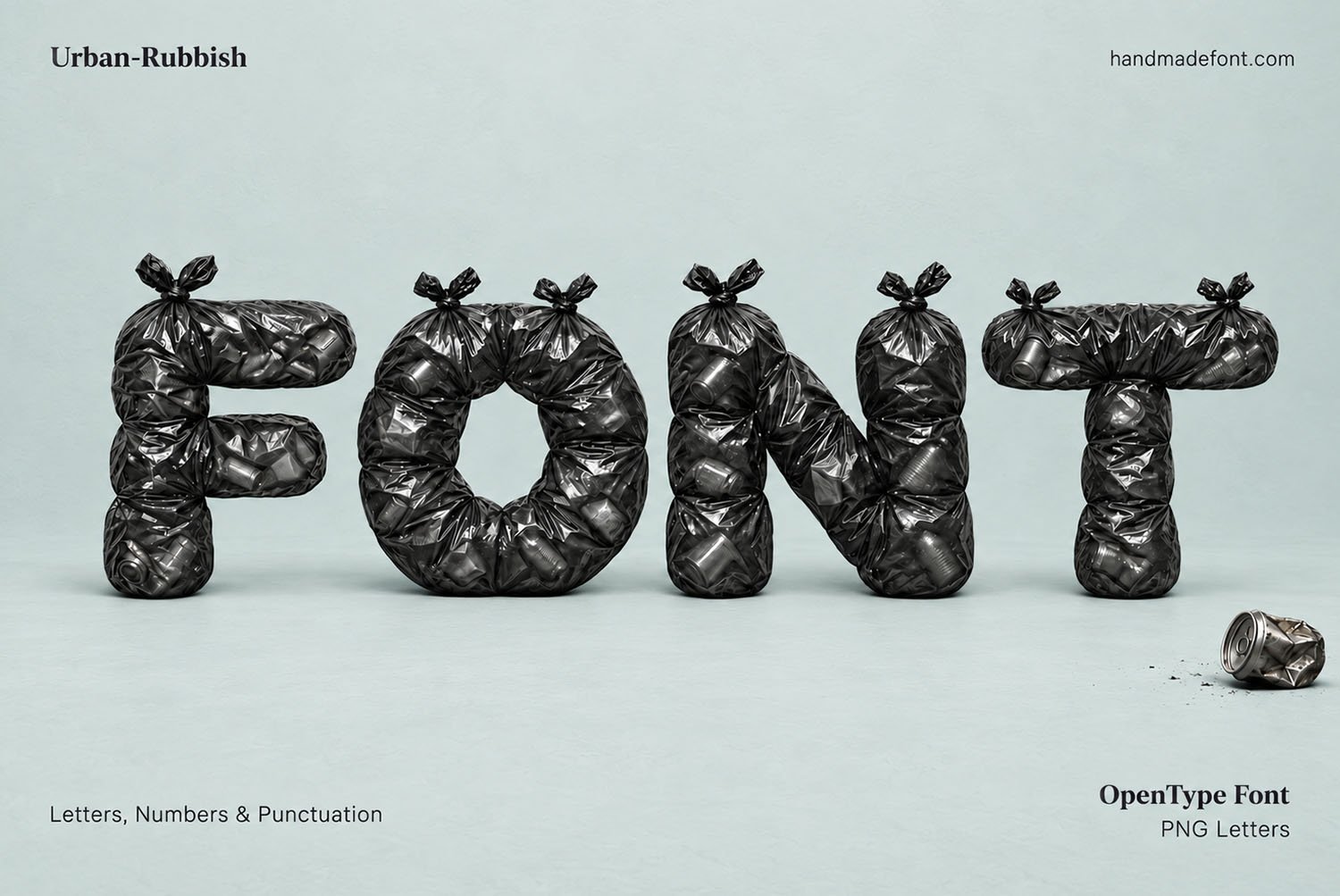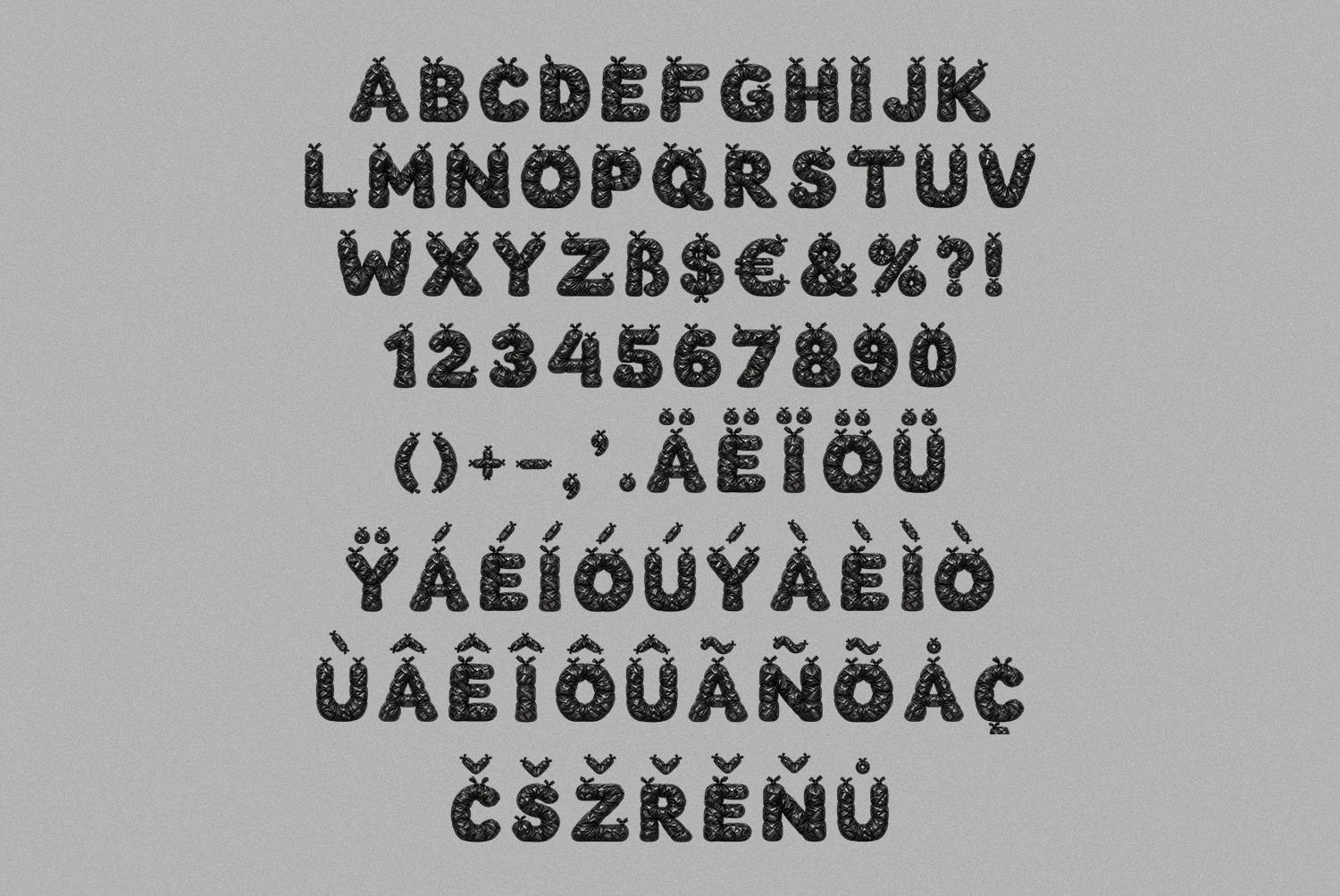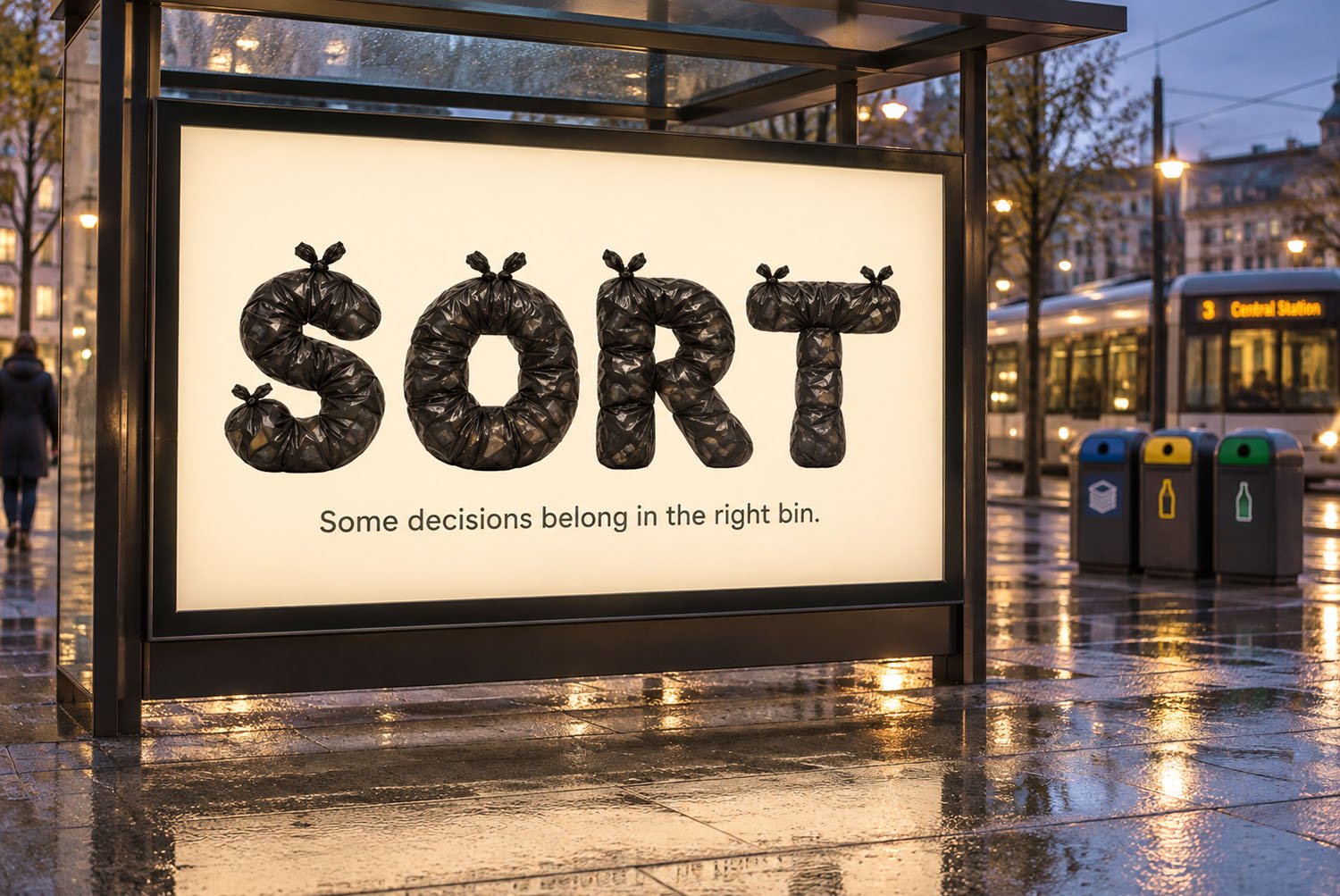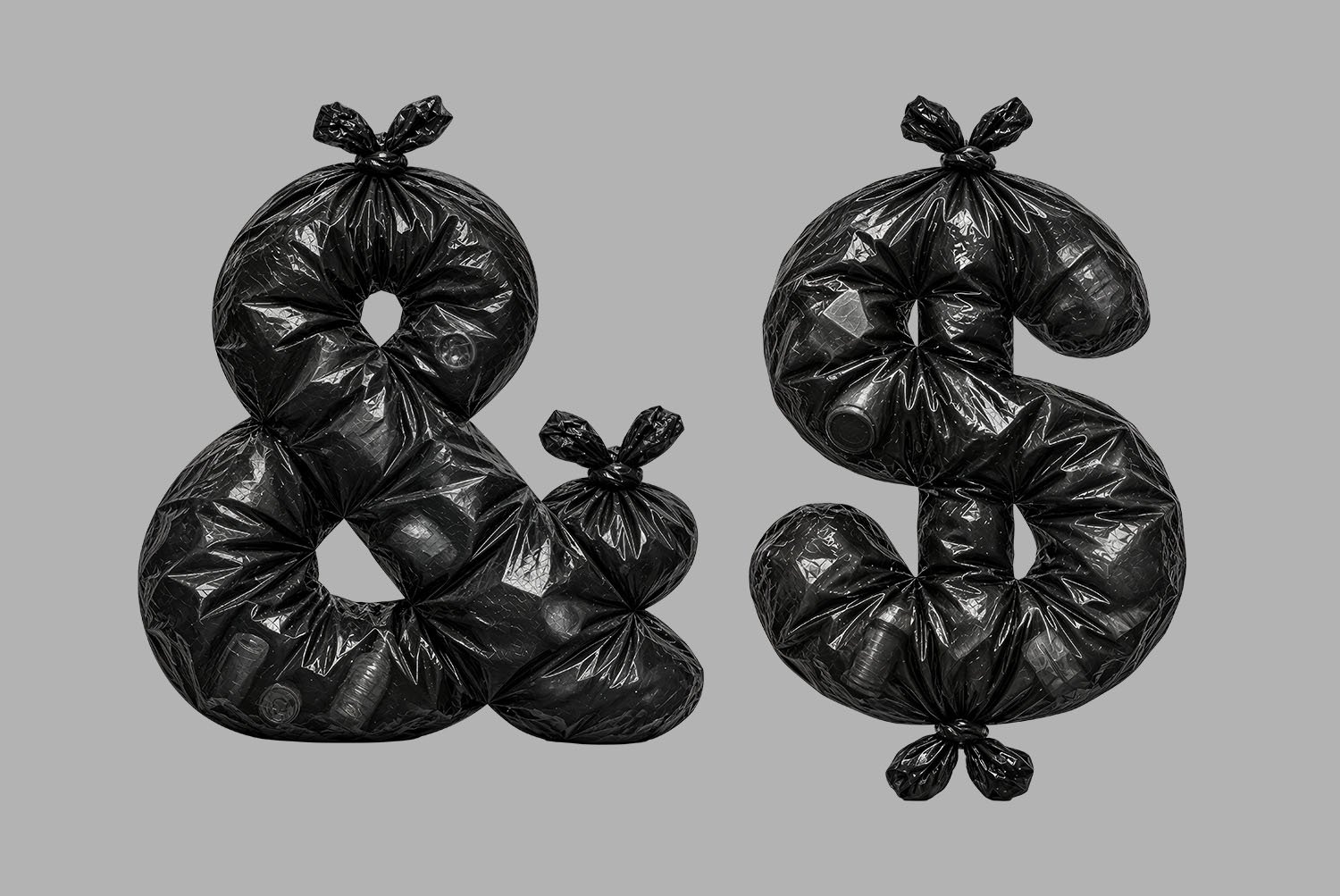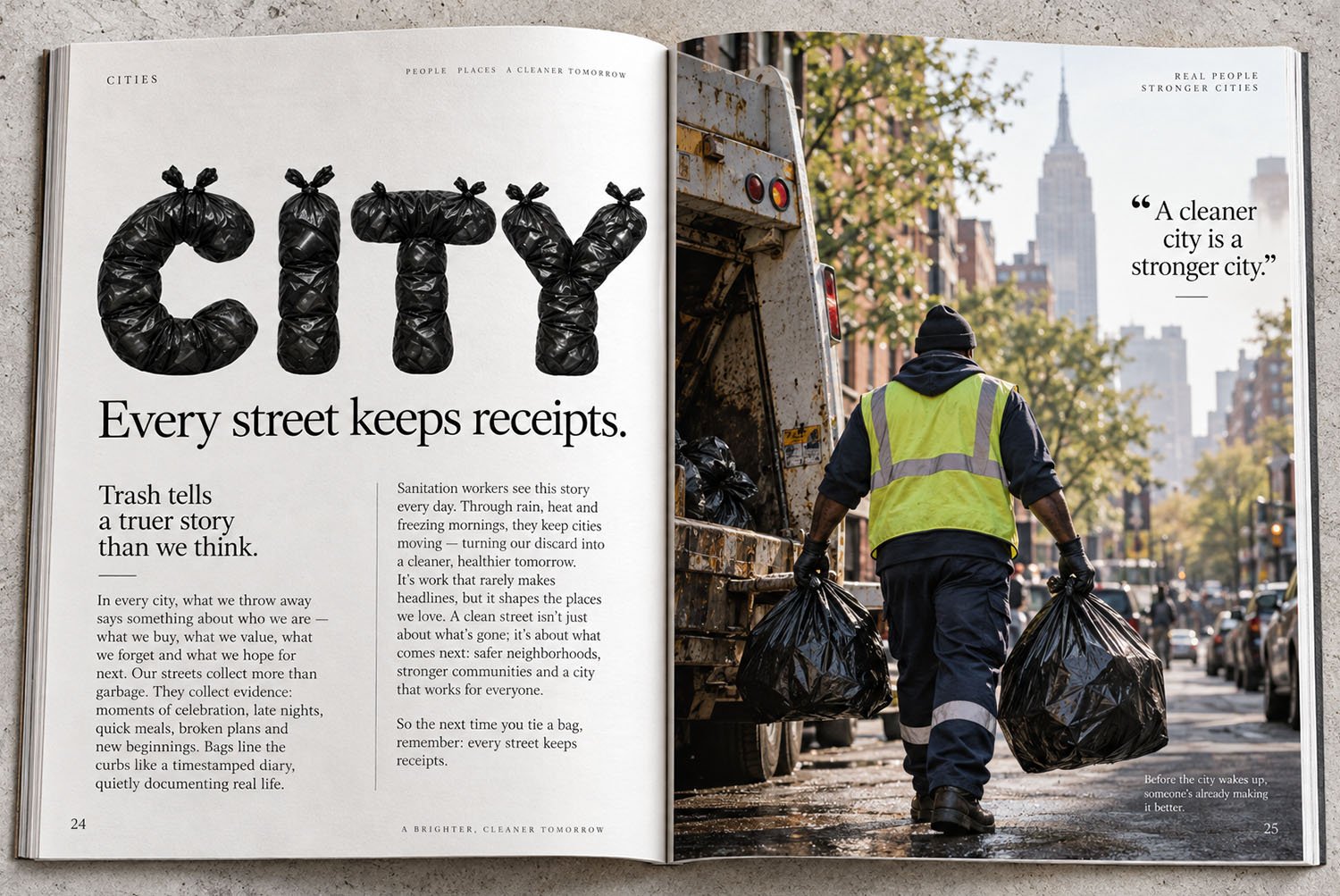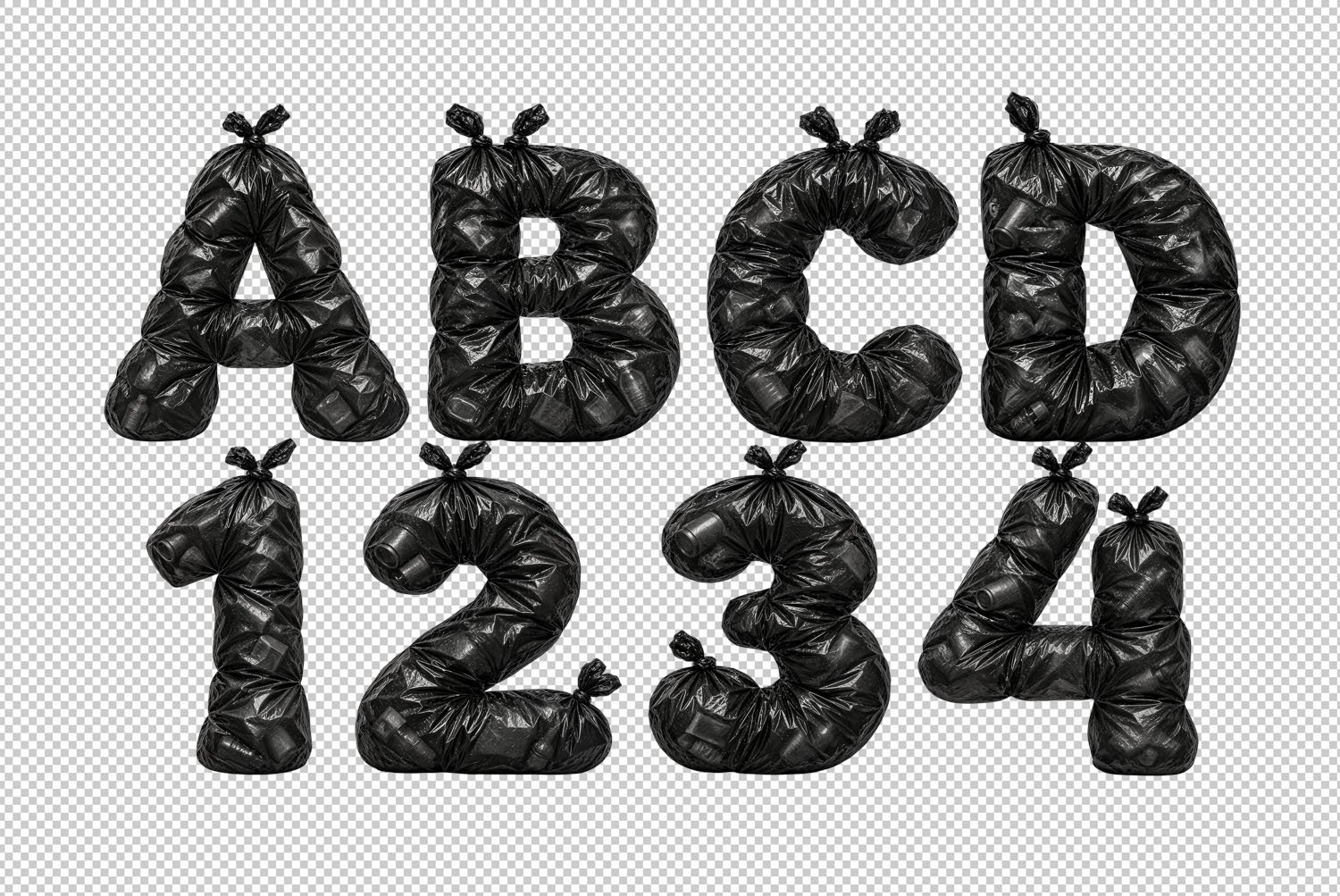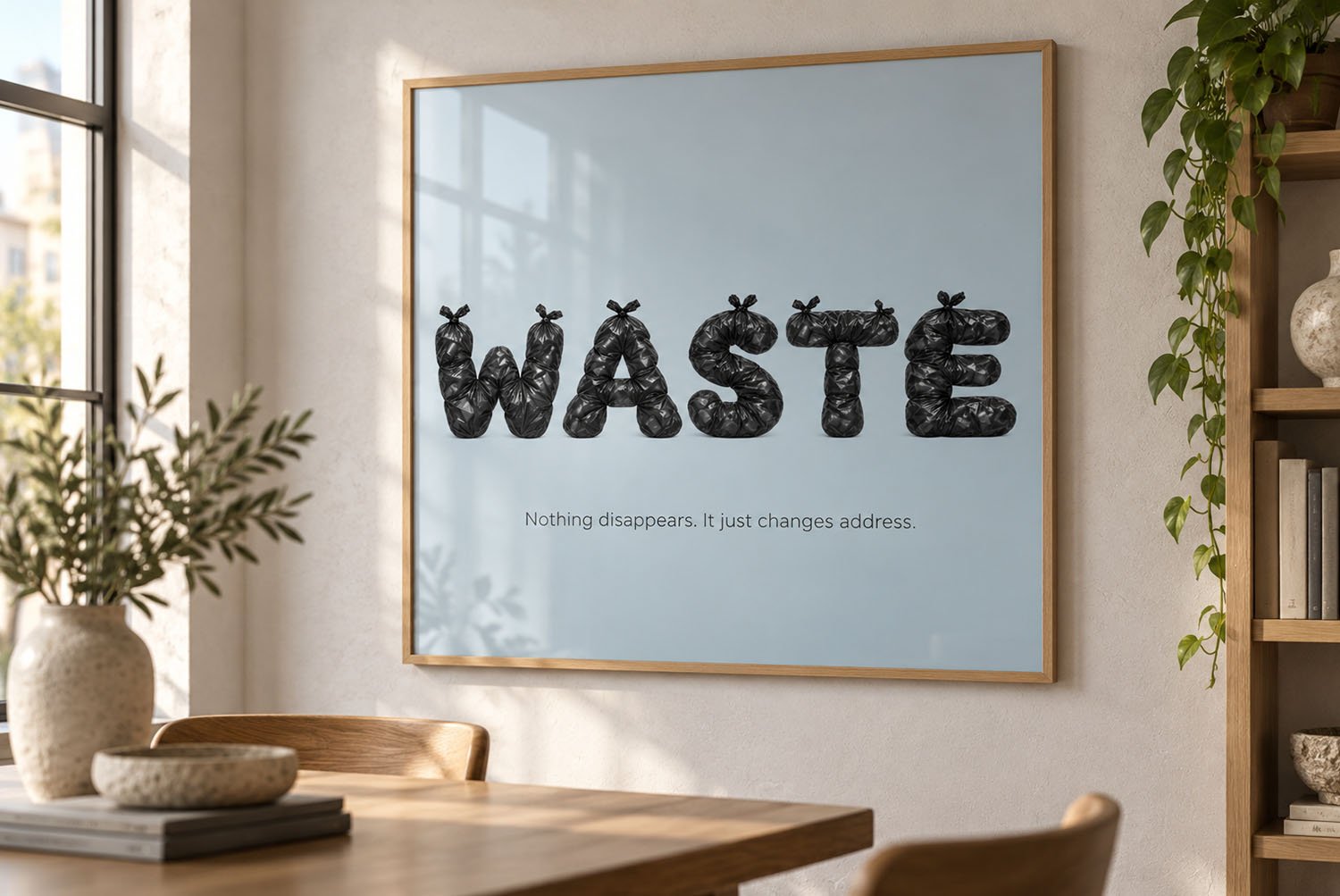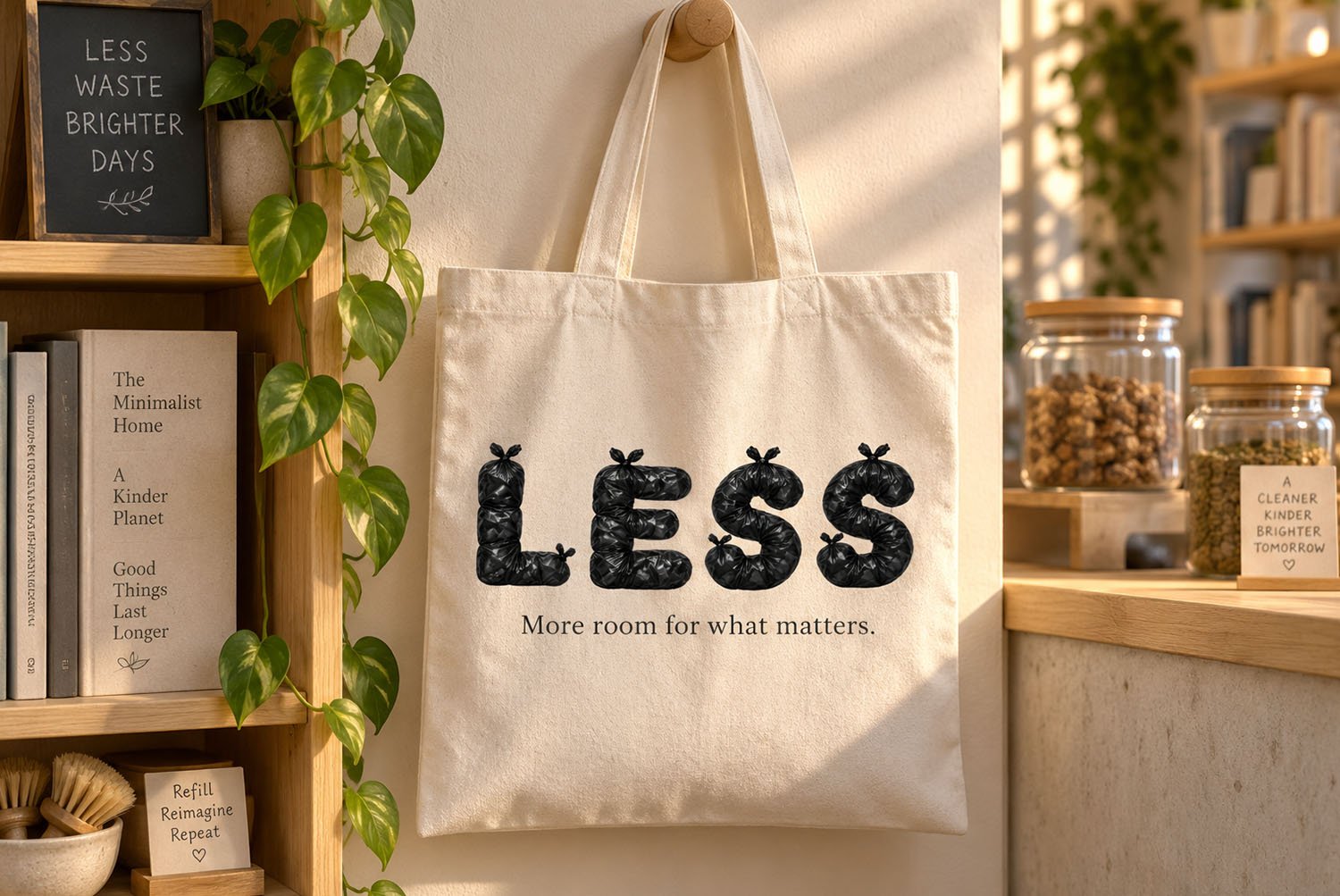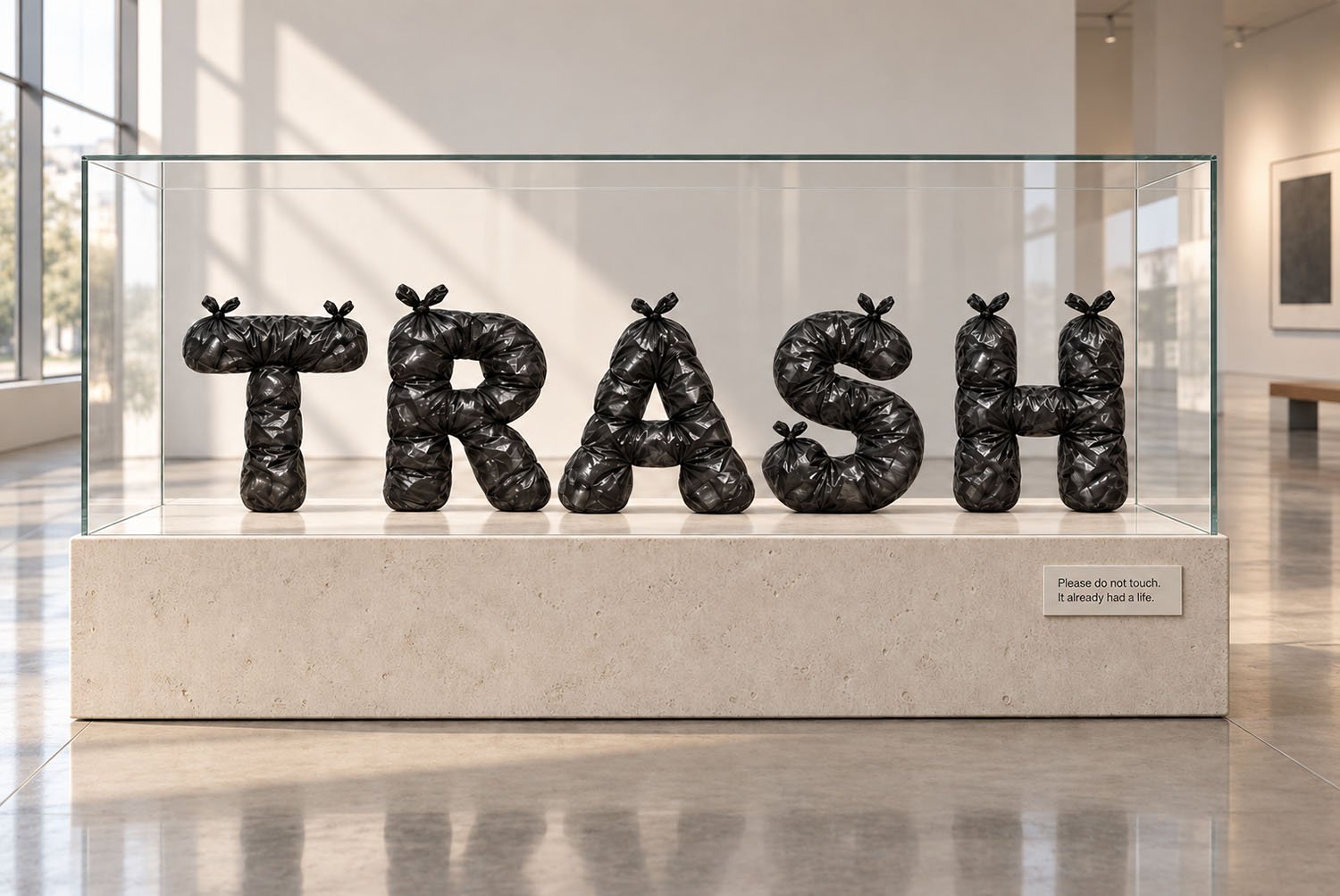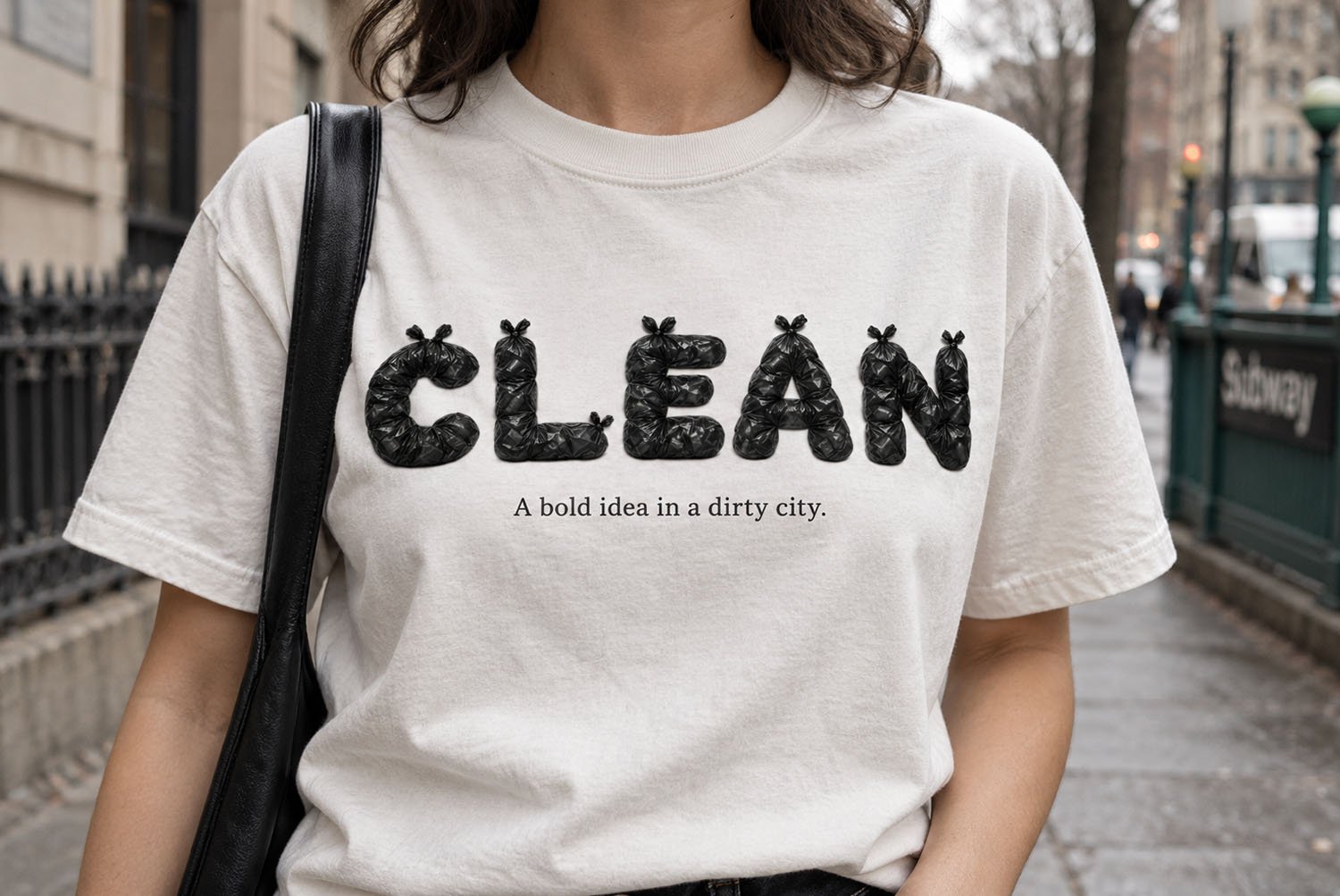
Urban Rubbish Font
The Urban Rubbish Font is a unique and highly bold typographic project where all characters are realistically stylized as black plastic trash bags. Available in OTF format, this creative font also includes each letter as a separate PNG file on a completely transparent background. Its design features striking details: top knots on the bags act as classic serifs, a glossy texture highlights the stroke forms, and outlines of hidden tin cans set the visual rhythm. The comprehensive character set naturally contains standard uppercase letters, numbers, punctuation marks, and various diacritics.